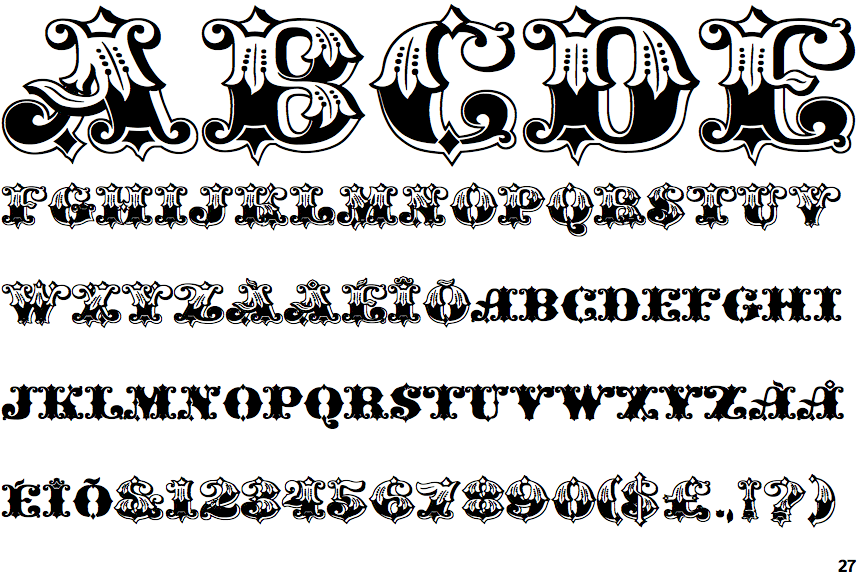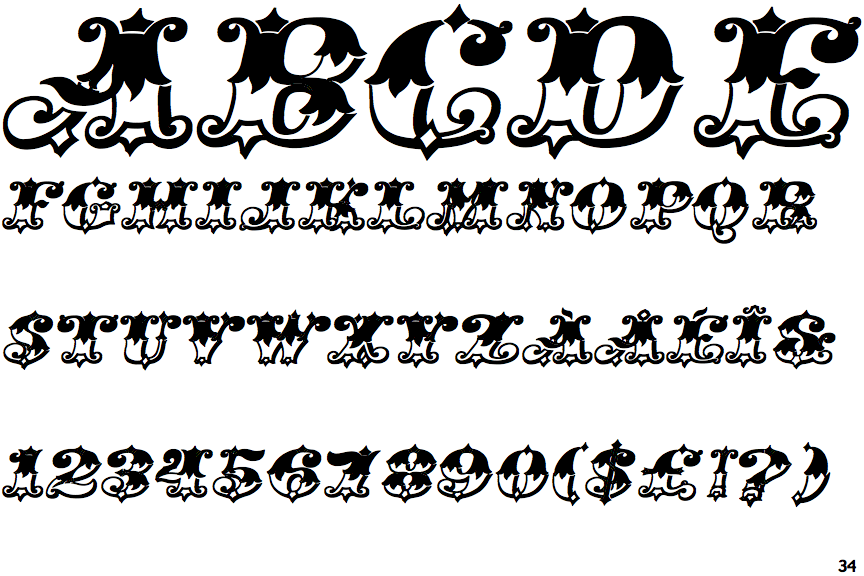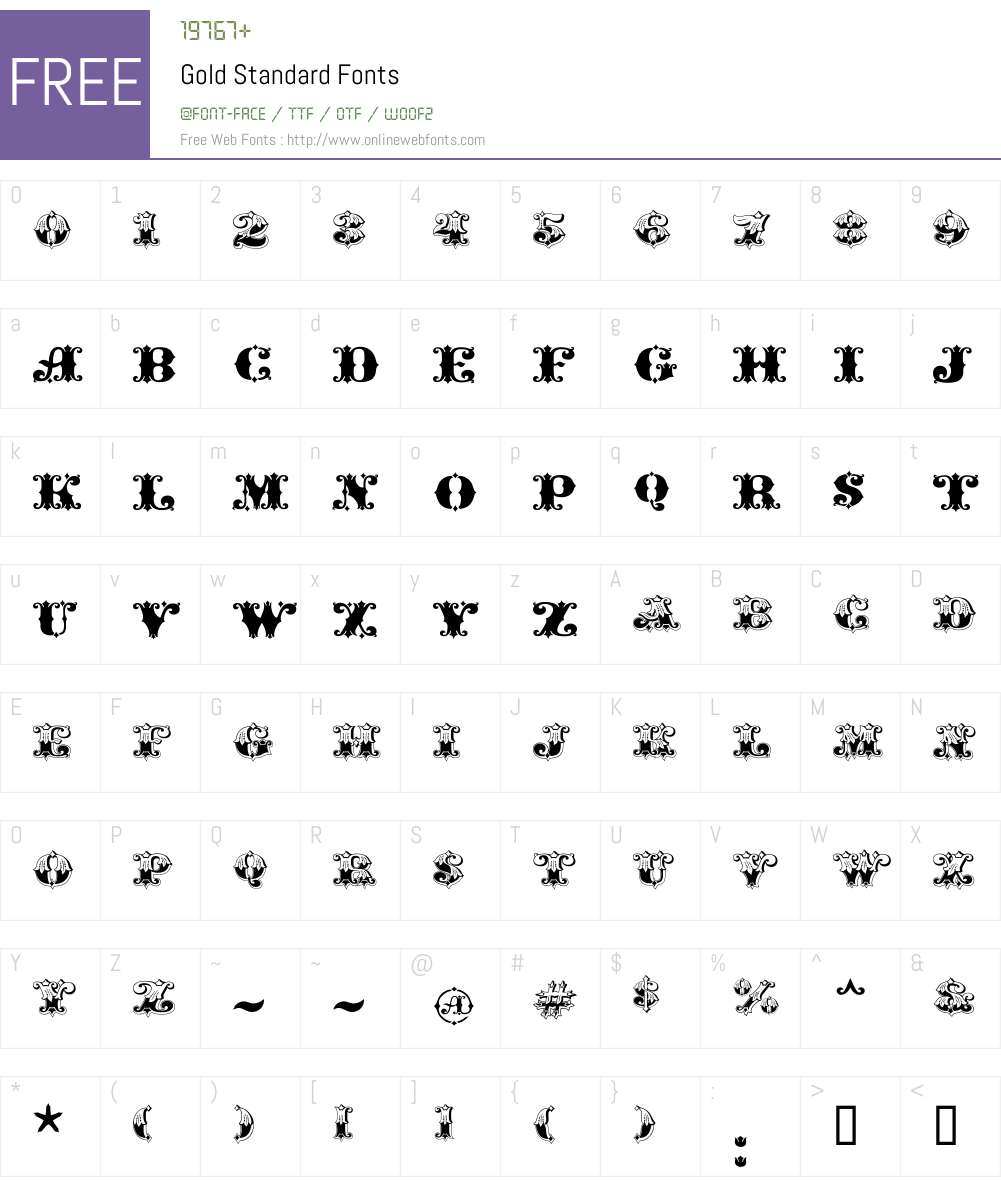
Gold Standard Font . The gold standard brand uses open sans as its primary typography font. Gold standard got its start from a few letters found on an old gold certificate from 1882. From those few letters spelling out. Gold standard font is a luxurious and elegant typeface that exudes sophistication and class. Votes, rated based on results identification. If you recognize the font from the samples posted here don't be shy and help a fellow designer. Its ornate design features intricate details and flourishes that add a touch of opulence to any. You can use the gold standard to create interesting designs, covers, shop and store name and logos. Examples and download link for the gold standard™ font designed by michael hagemann in 2003. For windows in truetype, windows in postscript,. Gold standard font family was designed by michael hagemann and published by fontmesa. Although you are not required to use this font when representing gold. Also, the gold standard font is. Gold standard contains 2 styles and family.
The gold standard brand uses open sans as its primary typography font. For windows in truetype, windows in postscript,. Its ornate design features intricate details and flourishes that add a touch of opulence to any. Although you are not required to use this font when representing gold. From those few letters spelling out. If you recognize the font from the samples posted here don't be shy and help a fellow designer. Gold standard font family was designed by michael hagemann and published by fontmesa. Gold standard font is a luxurious and elegant typeface that exudes sophistication and class. Gold standard contains 2 styles and family. Gold standard got its start from a few letters found on an old gold certificate from 1882.
Gold Standard Font For windows in truetype, windows in postscript,. Its ornate design features intricate details and flourishes that add a touch of opulence to any. Gold standard contains 2 styles and family. Although you are not required to use this font when representing gold. You can use the gold standard to create interesting designs, covers, shop and store name and logos. The gold standard brand uses open sans as its primary typography font. Also, the gold standard font is. Gold standard got its start from a few letters found on an old gold certificate from 1882. Votes, rated based on results identification. Gold standard font is a luxurious and elegant typeface that exudes sophistication and class. From those few letters spelling out. Examples and download link for the gold standard™ font designed by michael hagemann in 2003. For windows in truetype, windows in postscript,. Gold standard font family was designed by michael hagemann and published by fontmesa. If you recognize the font from the samples posted here don't be shy and help a fellow designer.
15+ Best Gold Fonts + Gold Text Effects for Golden Designs Gold Standard Font Gold standard contains 2 styles and family. If you recognize the font from the samples posted here don't be shy and help a fellow designer. Gold standard font family was designed by michael hagemann and published by fontmesa. Gold standard got its start from a few letters found on an old gold certificate from 1882. Votes, rated based on results. Gold Standard Font.
21 Gold Foil Fonts — the Perfect Fonts to Add Some Gold To — Medialoot Gold Standard Font You can use the gold standard to create interesting designs, covers, shop and store name and logos. Also, the gold standard font is. Votes, rated based on results identification. Gold standard got its start from a few letters found on an old gold certificate from 1882. For windows in truetype, windows in postscript,. If you recognize the font from the. Gold Standard Font.
Gold Font Vectors, Photos and PSD files Free Download Gold Standard Font Gold standard got its start from a few letters found on an old gold certificate from 1882. Its ornate design features intricate details and flourishes that add a touch of opulence to any. Also, the gold standard font is. Although you are not required to use this font when representing gold. The gold standard brand uses open sans as its. Gold Standard Font.
Glossy gold fonts Gold Standard Font You can use the gold standard to create interesting designs, covers, shop and store name and logos. For windows in truetype, windows in postscript,. From those few letters spelling out. Gold standard font is a luxurious and elegant typeface that exudes sophistication and class. Examples and download link for the gold standard™ font designed by michael hagemann in 2003. The. Gold Standard Font.
Gold Metallic Glossy Vector Font or Gold Style Alphabet. Yellow Metal Typeface Stock Vector Gold Standard Font Its ornate design features intricate details and flourishes that add a touch of opulence to any. Also, the gold standard font is. For windows in truetype, windows in postscript,. Examples and download link for the gold standard™ font designed by michael hagemann in 2003. Gold standard font is a luxurious and elegant typeface that exudes sophistication and class. Gold standard. Gold Standard Font.
Gold Standard Fill Half Regular Download for free at Free Fonts Gold Standard Font Gold standard contains 2 styles and family. Gold standard got its start from a few letters found on an old gold certificate from 1882. Votes, rated based on results identification. The gold standard brand uses open sans as its primary typography font. Gold standard font is a luxurious and elegant typeface that exudes sophistication and class. For windows in truetype,. Gold Standard Font.
Golden Glossy Font, Gold Alphabet, Gold Text Stock Vector Illustration of chrome, font 163398411 Gold Standard Font Also, the gold standard font is. The gold standard brand uses open sans as its primary typography font. Votes, rated based on results identification. Although you are not required to use this font when representing gold. If you recognize the font from the samples posted here don't be shy and help a fellow designer. From those few letters spelling out.. Gold Standard Font.
3D Gold Alphabet Font. Shiny Golden Letters, Numbers and Symbols Stock Vector Illustration of Gold Standard Font Gold standard font family was designed by michael hagemann and published by fontmesa. For windows in truetype, windows in postscript,. If you recognize the font from the samples posted here don't be shy and help a fellow designer. Gold standard font is a luxurious and elegant typeface that exudes sophistication and class. Gold standard contains 2 styles and family. You. Gold Standard Font.
15+ Best Gold Fonts + Gold Text Effects for Golden Designs Gold Standard Font If you recognize the font from the samples posted here don't be shy and help a fellow designer. Gold standard contains 2 styles and family. Although you are not required to use this font when representing gold. From those few letters spelling out. Also, the gold standard font is. The gold standard brand uses open sans as its primary typography. Gold Standard Font.